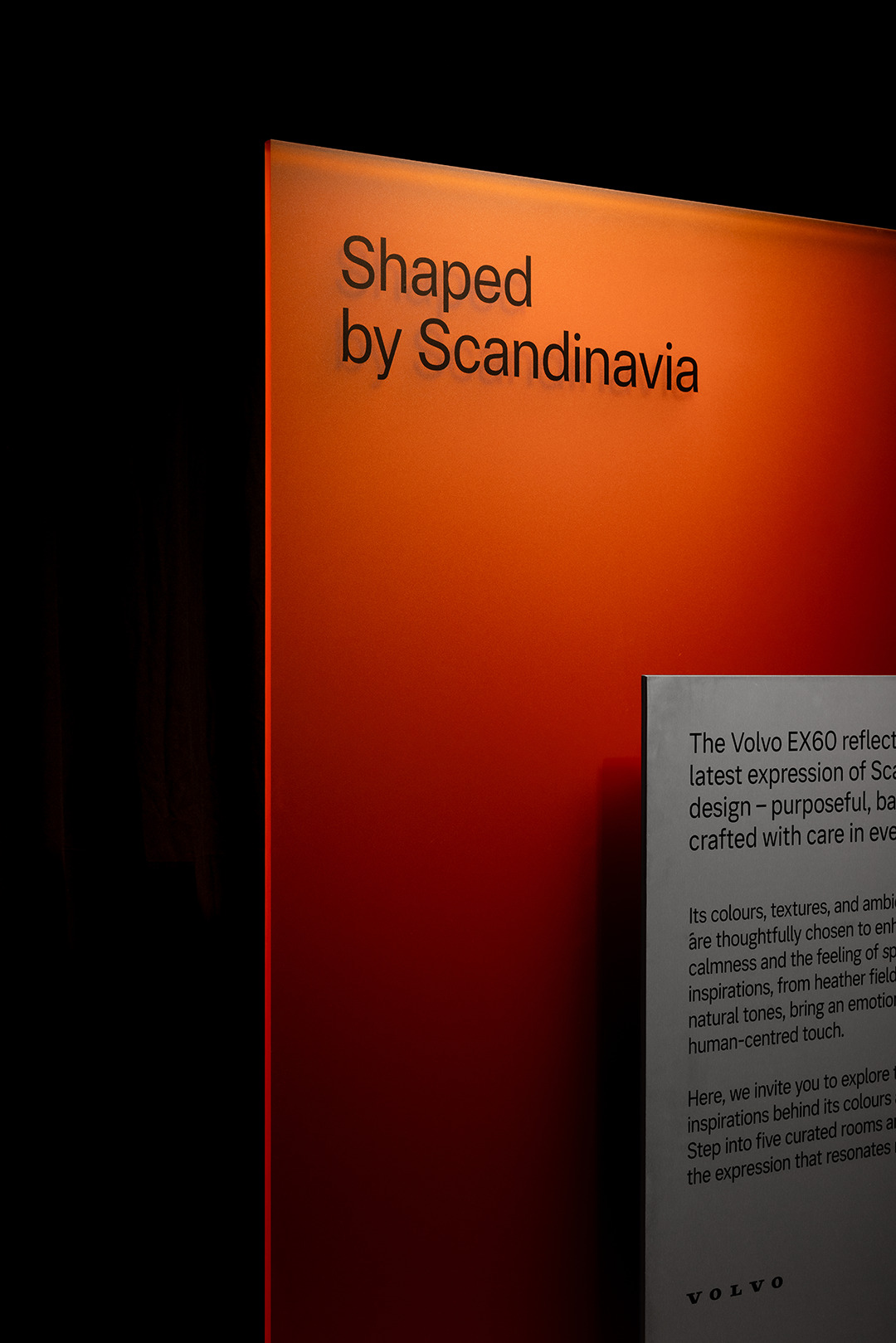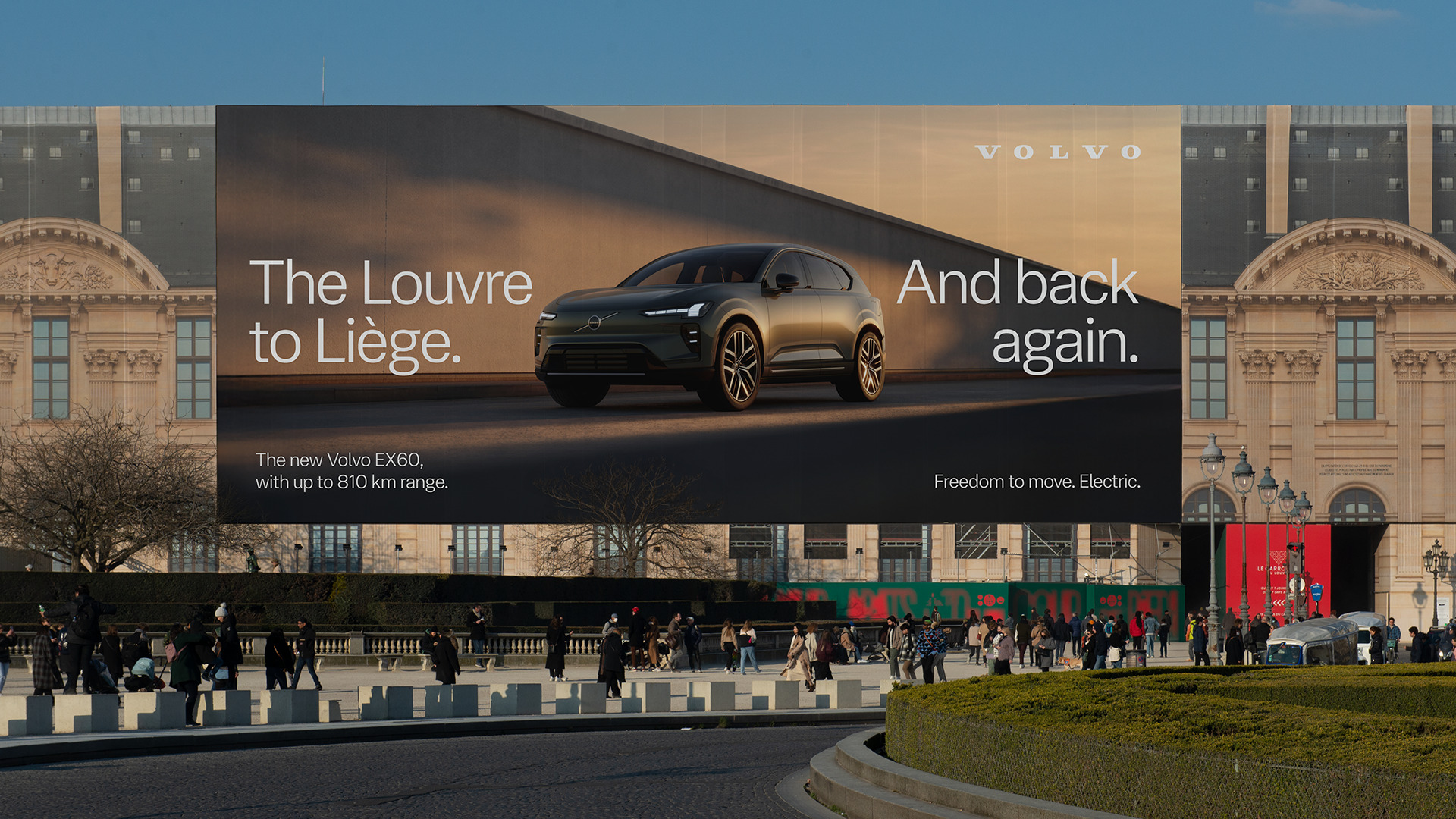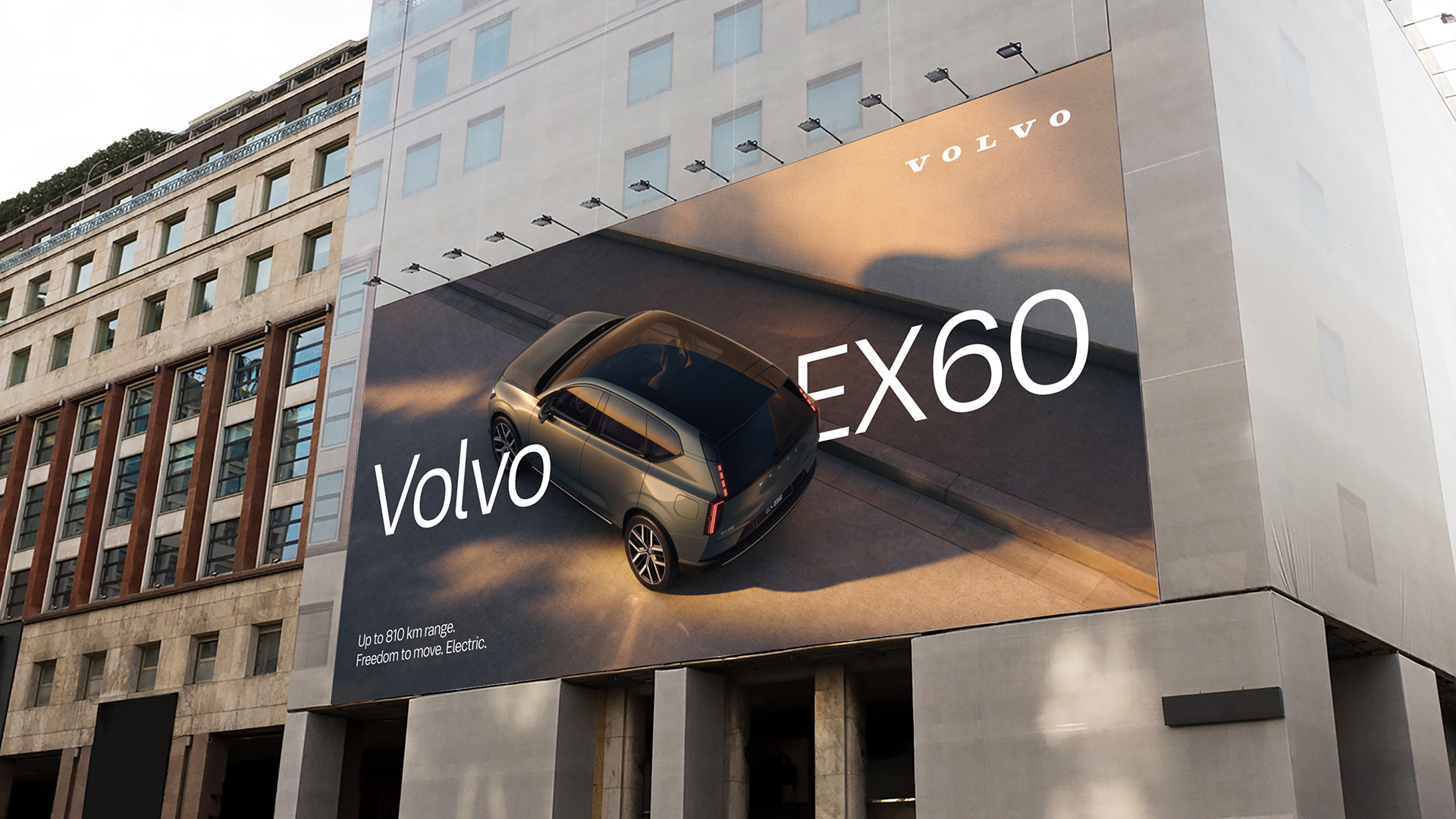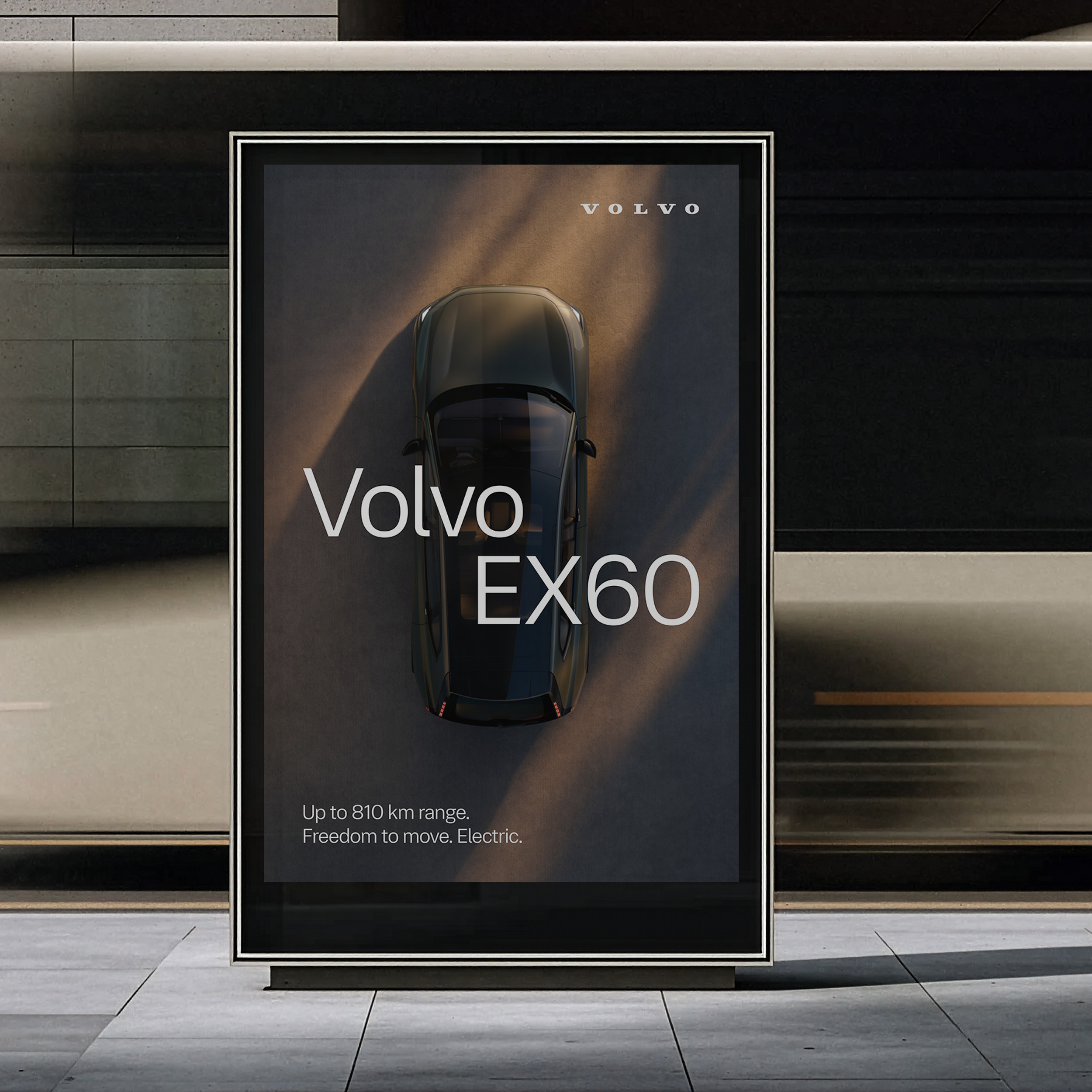
Volvo Centum
A Custom Font Family for Volvo Cars
Volvo Centum
A Custom Font Family for Volvo Cars
We helped Volvo Cars turn typography into a tool for ‘glance-based’ clarity. Volvo Centum ensures instant recognition across all touchpoints, reducing cognitive load in digital-first interiors, and setting a new standard for how a typeface can support safety.
Volvo Centum, Custom Font, 2025
Writing Systems
Arabic, Cyrillic, Greek, Latin
Language Support
Over 800 languages
Text
Display
Volvo Centum Text anatomy